Canva offers a variety of Irish fonts that are perfect for capturing the spirit of St.Patrick’s festive holiday. From elegant scripts that mimic ancient Celtic calligraphy to playful typefaces that echo the lively streets of Dublin, our list of 16 Irish fonts available on Canva will help you bring a bit of Irish magic to your designs. These fonts each bring unique characteristics that can enhance various St. Patrick’s Day projects, from the playful to the formal, ensuring your Canva creations resonate with the spirit of the holiday.
1. AgnetsÂ
Why it is the perfect Irish font: This font features elegant curves and fine lines, reminiscent of ancient Celtic manuscripts. Its sophisticated style is perfect for creating more formal St. Patrick’s Day invitations or event menus.
2. Brice SemiexpandedÂ
Why it is the perfect Irish font: Brice Semiexpanded offers a bold and modern look with a slightly expanded letterform that gives it a presence on the page. This makes it ideal for eye-catching headlines in any festive advertisement or announcement.
3. Celandine OutlineÂ
Why it is the perfect Irish font: With its outlined characters and decorative elements, Celandine Outline is evocative of Celtic knots and Irish lace, adding an intricate, decorative touch to any St. Patrick’s Day design.
4. DaydreamÂ
Why it is the perfect Irish font: This whimsical, flowing script brings a light-hearted and joyful feel, perfect for St. Patrick’s Day event posters or cheerful greetings. Its casual elegance captures the festive and lively essence of the holiday.
5. Drukaatie Burti BoldÂ
Why it is the perfect Irish font: Strong and impactful, Drukaatie Burti Bold is a contemporary font that stands out on promotional materials and social media graphics, making sure your St. Patrick’s Day messages are loud and clear.
6. EFCO BrookshireÂ
Why it is the perfect Irish font: This font has a traditional feel with a modern twist, reminiscent of old Irish pubs’ signage, making it ideal for creating nostalgic St. Patrick’s Day-themed pub crawls or historical event flyers.
7. Elika GoricaÂ
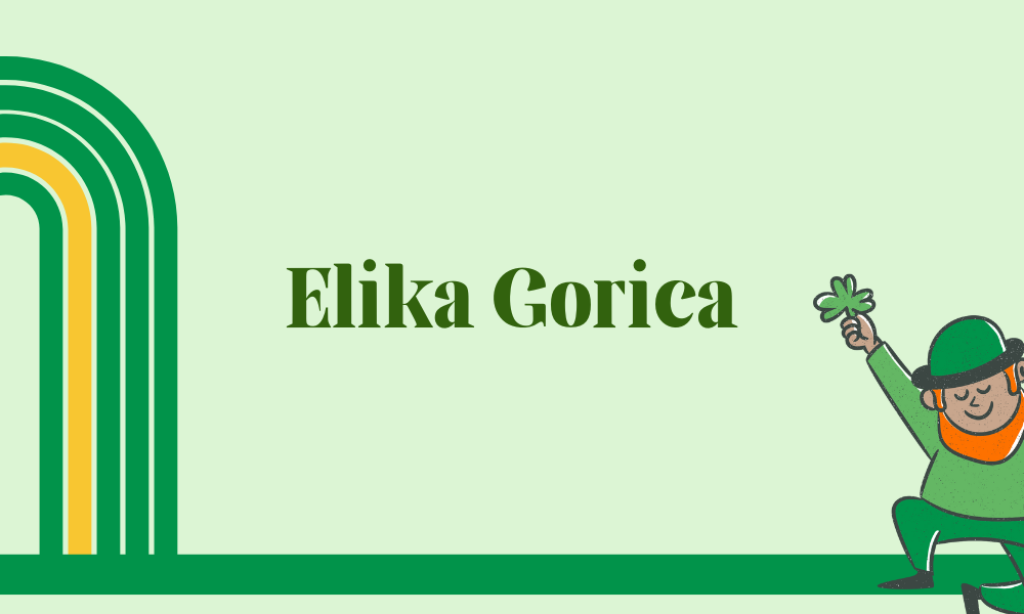
Why it is the perfect Irish font: The gentle curves and sharp finishes of Elika Gorica provide a dynamic balance, echoing the Celtic tradition with a stylish flair suitable for both modern and classical St. Patrick’s Day designs.
8. GlassureÂ
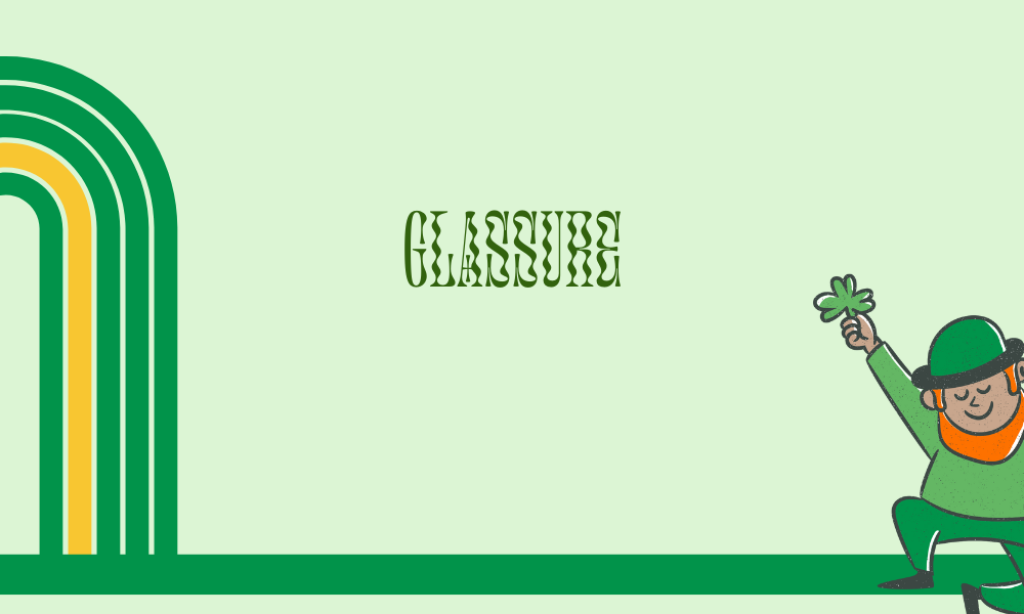
Why it is the perfect Irish font: Featuring a clean, geometric structure with a futuristic feel, Glassure could be used for innovative St. Patrick’s Day party invites or tech-themed Irish events, offering a unique twist on traditional celebrations.
9. HangyabolyÂ
Why it is the perfect Irish font: This playful, rounded typeface embodies the fun and energy of St. Patrick’s Day. Its friendly and approachable style is perfect for family-friendly event flyers or children’s party invitations.
10. Klemer DisplayÂ
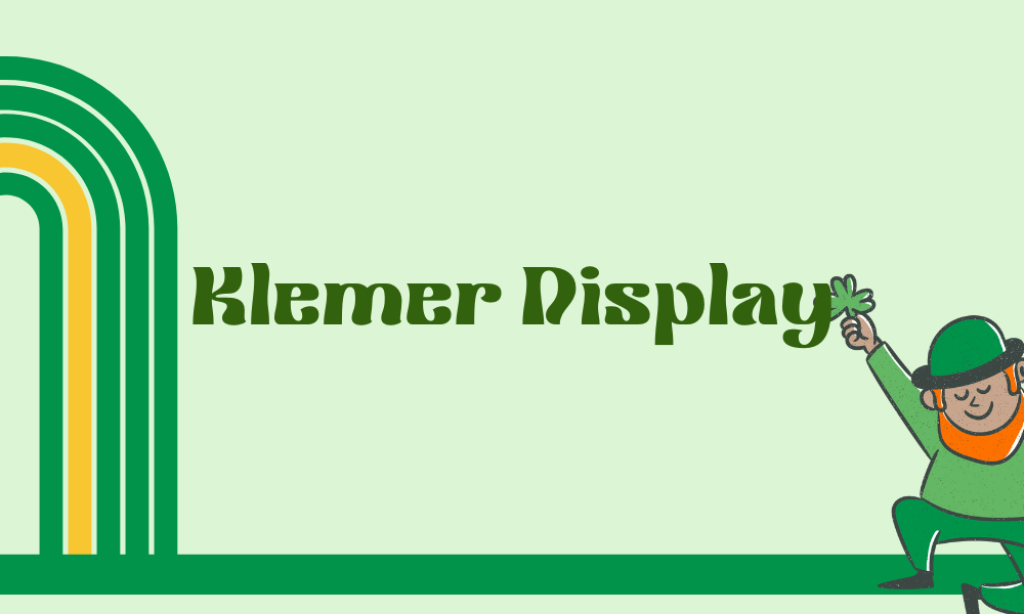
Why it is the perfect Irish font: Bold and assertive, Klemer Display is perfect for making a statement. Use it for high-impact banners or signs that need to catch the eye from a distance, like at parades or large gatherings.
11. Luckiest GuyÂ
Why it is the perfect Irish font: As the name suggests, this bold and lively font brings an element of fun and fortune, fitting for the playful spirit of St. Patrick’s Day and ideal for casual event tees or festive banners.
12. OreganoÂ
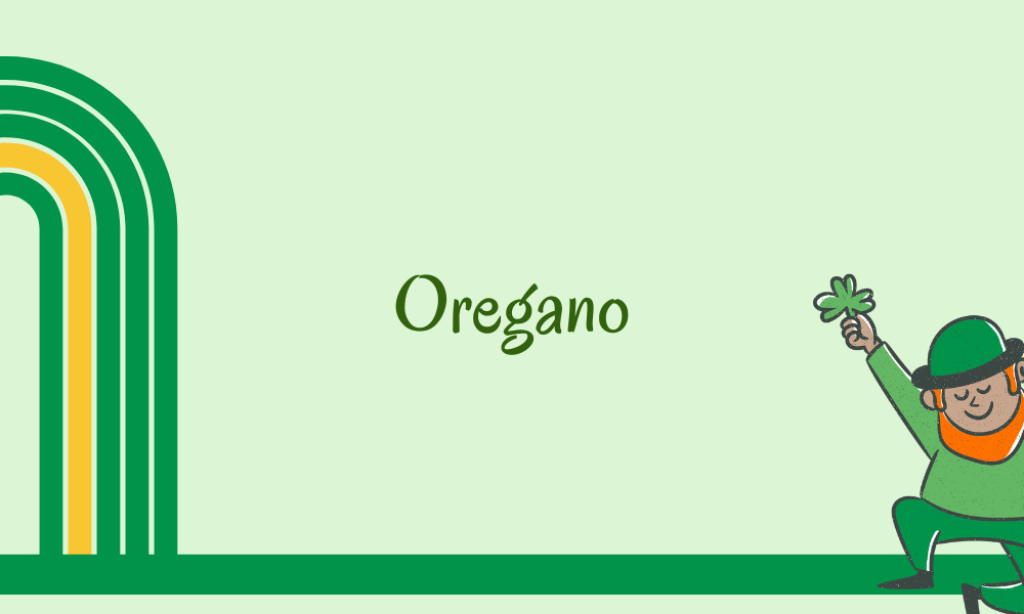
Why it is the perfect Irish font: This font features a hand-drawn, organic feel that mimics the rustic charm of the Irish countryside. It’s perfect for earthy, organic-themed St. Patrick’s Day events or eco-friendly celebrations.
13. Roboto SlabÂ
Why it is the perfect Irish font: With its friendly and accessible look, Roboto Slab is versatile enough to use in any St. Patrick’s Day material, from formal invitations to casual party flyers, providing readability and modern elegance.
14. Saint GeorgeÂ
Why it is the perfect Irish font: Named evocatively, Saint George offers a regal and bold typeface, suitable for grand St. Patrick’s Day events or promotions that require a touch of sophistication and historical weight.
15. St PetrovicaÂ
Why it is the perfect Irish font: This font has a distinctly traditional feel, perfect for events with a historical or cultural focus. It brings an authentic Irish touch to any content, from educational materials to cultural festival promotions.
16. Yatra OneÂ
Why it is the perfect Irish font: Though not traditionally Irish, Yatra One’s inclusion is due to its open and friendly appearance, making it suitable for inclusive, community-oriented St. Patrick’s Day events where diversity and unity are celebrated.